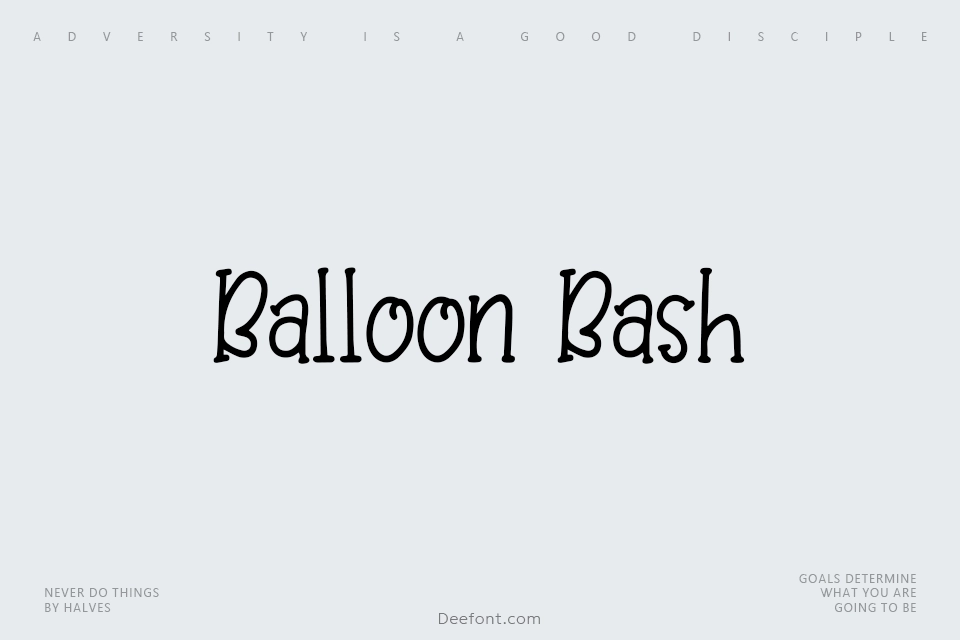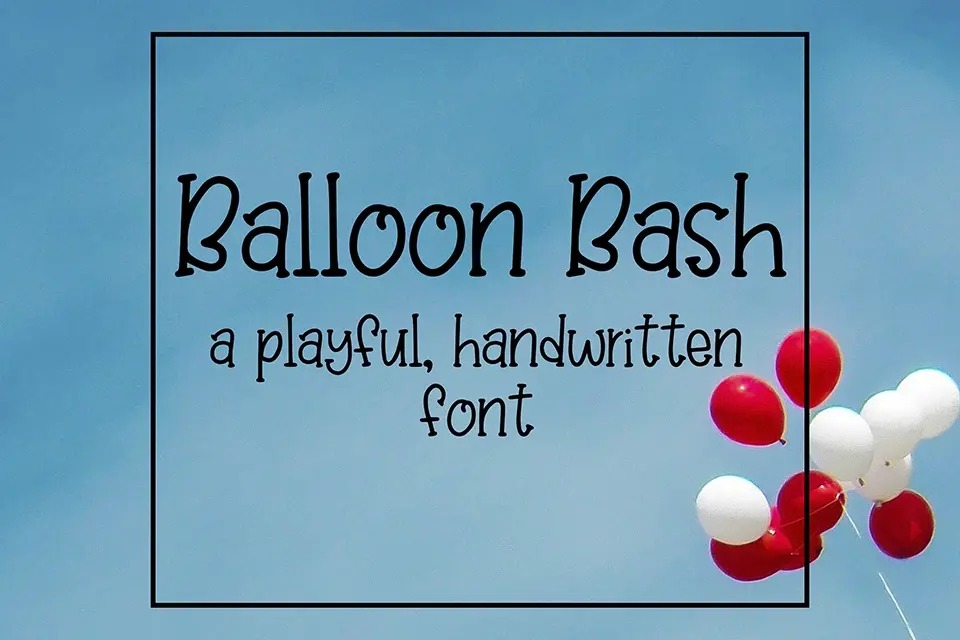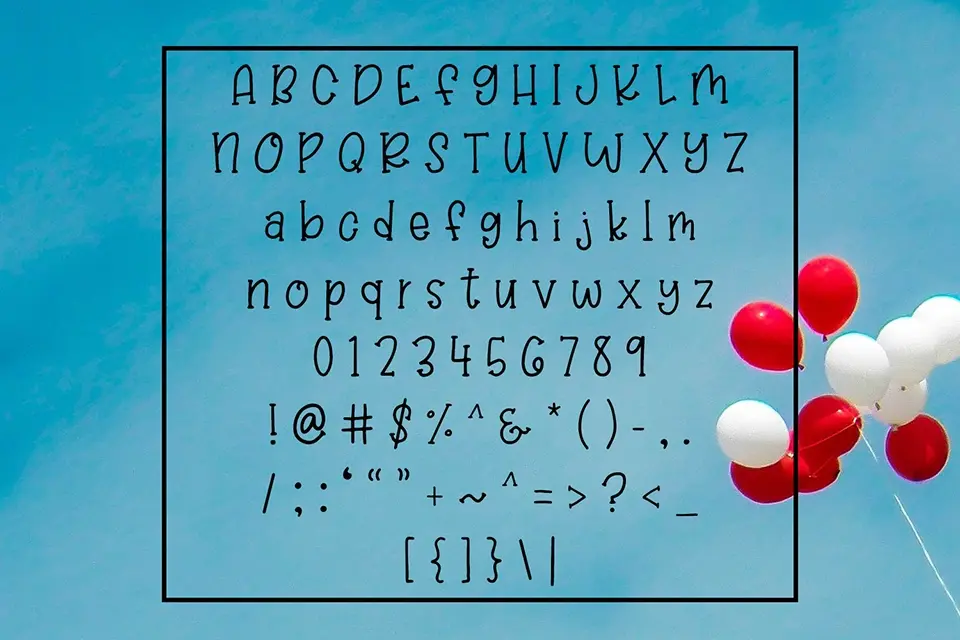
Balloon Bash Font
Balloon Bash is a playful handwritten serif font designed for creative projects. This charming typeface combines hand-lettered elegance with whimsical character details, making it perfect for wooden signs, children’s designs, and decorative typography. The font’s cheerful personality brings warmth and personality to any creative endeavor, offering versatile styling options for both print and digital applications.